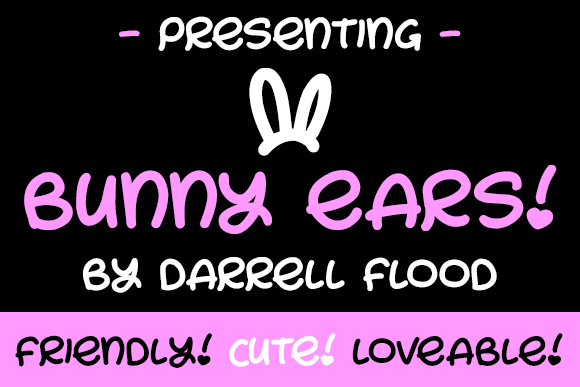
Bunny Ears Font
About Bunny Ears Font
A lovely, fancy font in a felt tip style. Includes bunny dress-up characters. Perfect for Spring and Easter themes and general upbeat, happy go lucky settings!